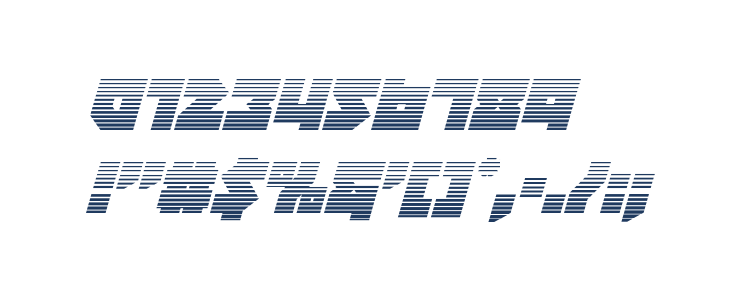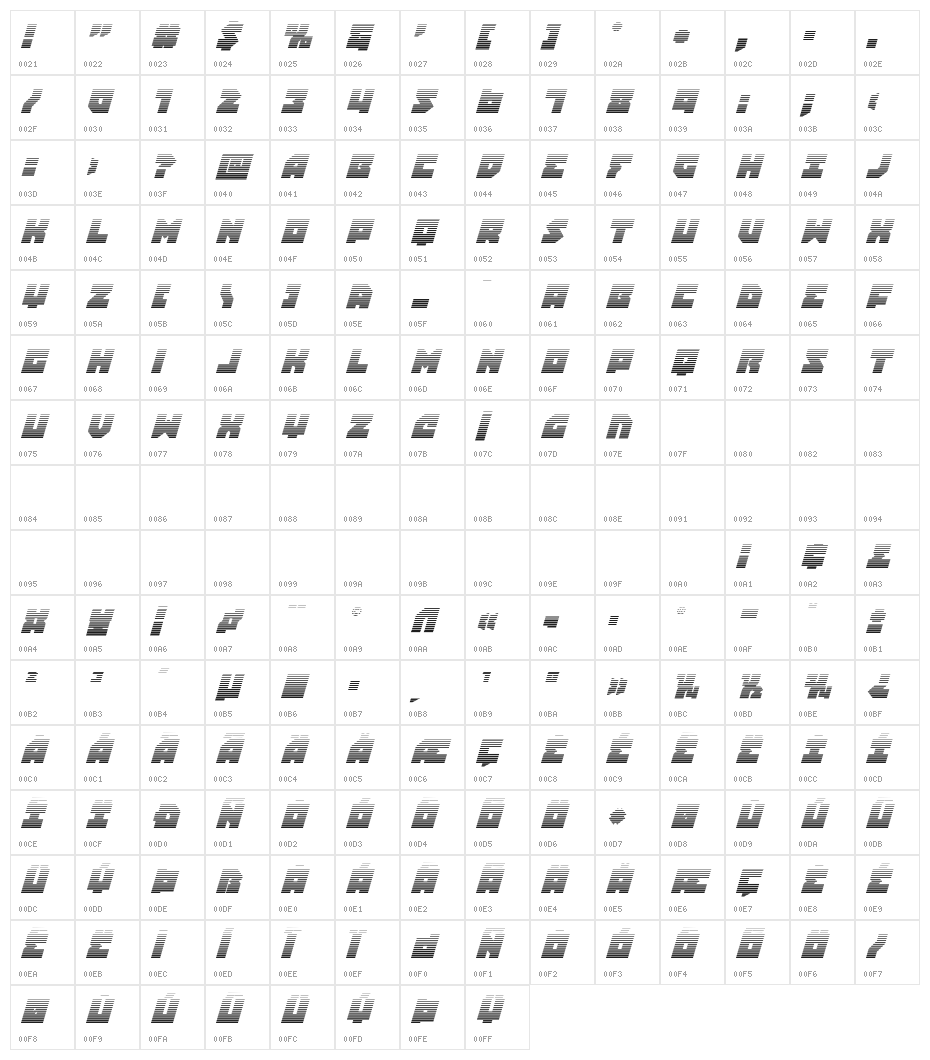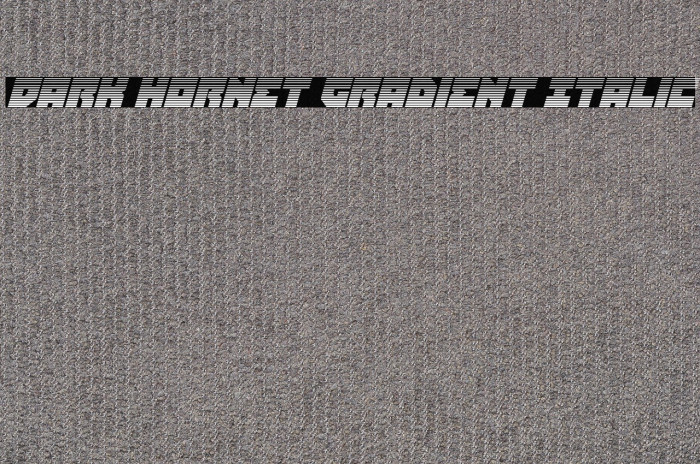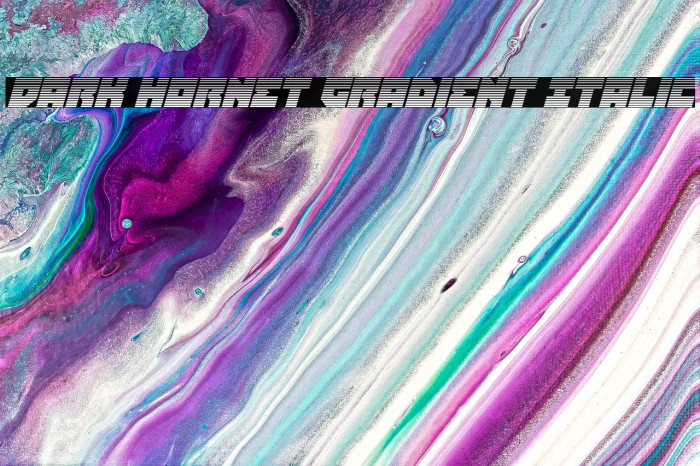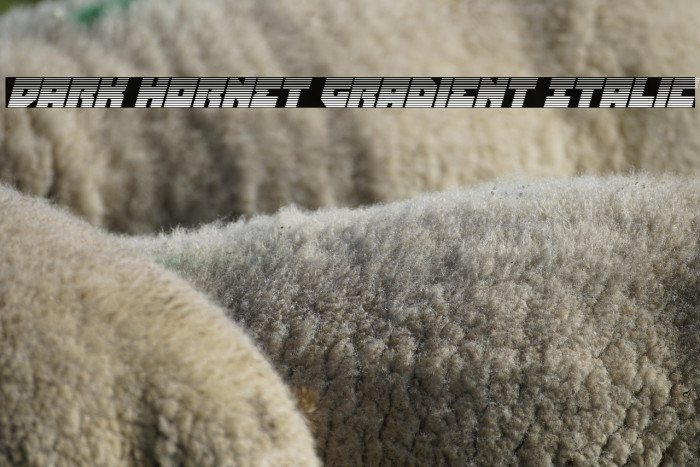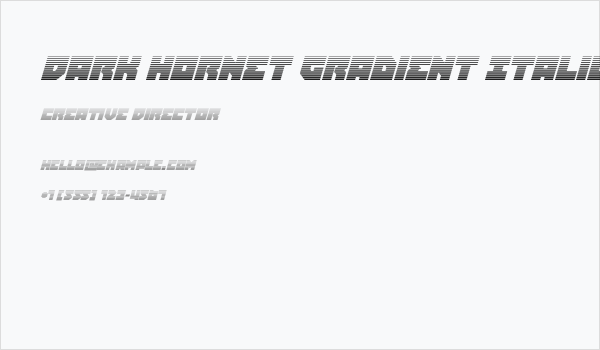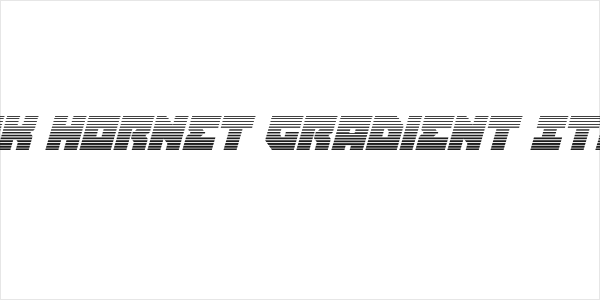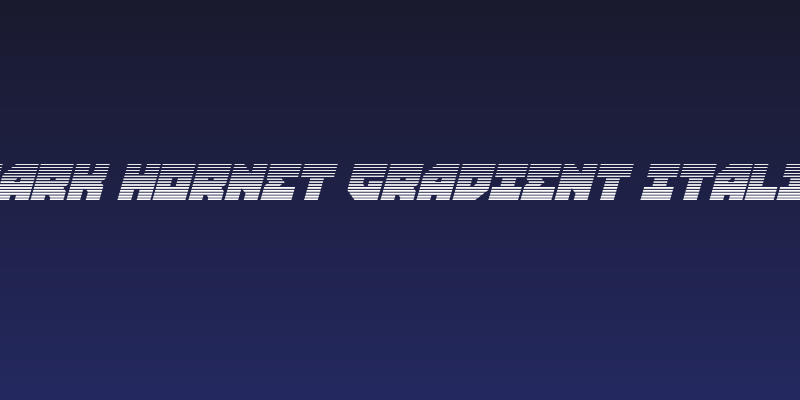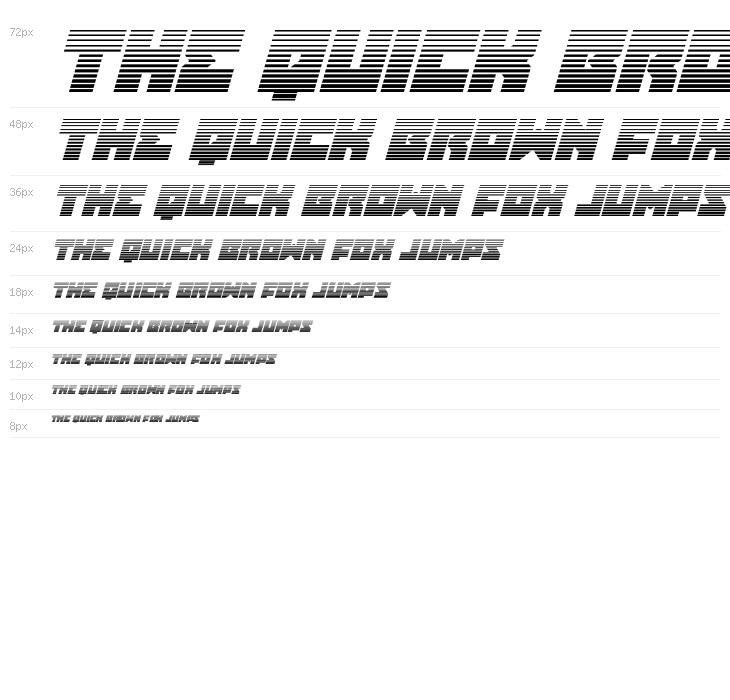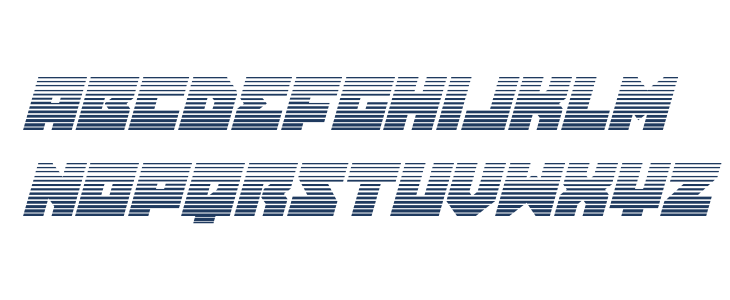
Dark Hornet Gradient Italic Font
Dark Hornet Gradient Italic Description
This font features a bold, dynamic design with a distinct gradient effect created by horizontal lines. The italicized style adds a sense of motion and speed, making it ideal for attention-grabbing headlines and modern design projects. Its geometric shapes and sharp angles give it a futuristic and edgy appearance, while the consistent line pattern across each character provides a cohesive look. The font's unique style is both decorative and functional, suitable for projects that require a strong visual impact.
| Proposed Projects | Ideal for sports branding, tech-related designs, video game titles, and dynamic posters. |